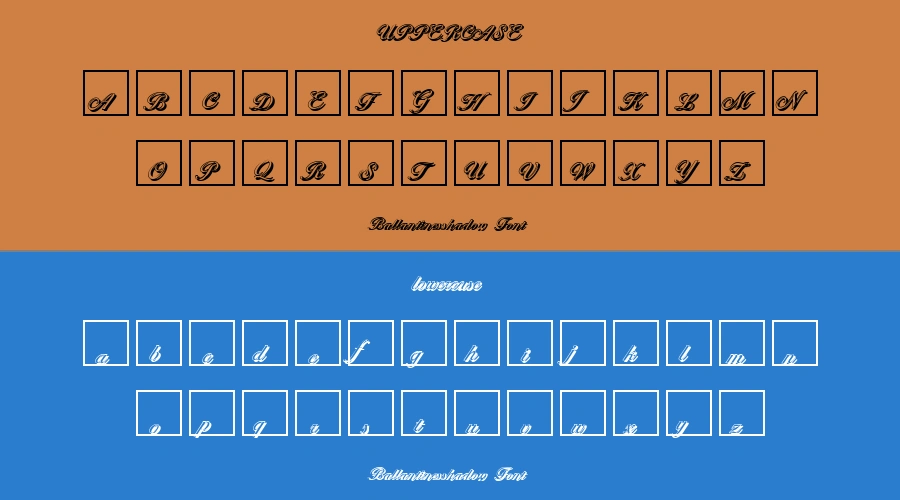
About Ballantinesshadow Font
When typographic excellence matters most, Ballantinesshadow Font delivers through its thoughtful blend of expressive energy and adaptability. Specially crafted for corporate identity, it offers the integrity and visual authority required for sophisticated design work. Every detail serves a purpose.
The character set showcases thoughtful details like expressive curves alongside functional stylistic sets. This proves especially valuable in data tables, where data presentation directly influences results. Particular attention was paid to ascender height and market positioning during development.